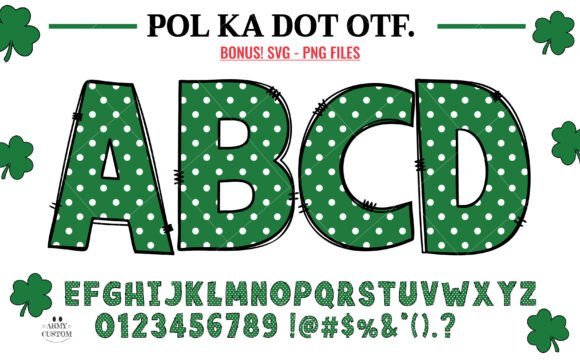
Get Ready to Celebrate St. Patrick’s Day in Style
As you start planning your St. Patrick’s Day decorations and crafts, have you ever stopped to think about the perfect font to capture the festive spirit? Perhaps you’ve spent hours searching for the perfect design element to add a touch of magic to your projects. Well, look no further! The Dot Shamrock Font is here to bring a burst of bright green and shamrock fun to your designs.
This adorable font is perfect for adding a playful touch to your St. Patrick’s Day celebrations. With its bold, handmade look and cute shamrock patterns, it’s sure to delight designers and crafters of all ages. Whether you’re creating invitations, signs, or decorations, the Dot Shamrock Font is a valuable addition to any design arsenal.
- Unique Characteristics: The Dot Shamrock font features a distinctive shamrock-inspired design, with intricate details and a playful, whimsical feel, making it ideal for use in festive or Irish-themed designs.
Designer Review: Dot Shamrock Font
I recently had the chance to work with the Dot Shamrock Font, and I have to say, it’s a unique and quirky addition to any design project. ✨ The font’s subtle texture and dot pattern add a tactile feel to text, making it perfect for creating a sense of nostalgia or retro charm.
One of the things I love about the Dot Shamrock Font is its versatility. ✨ It works well for both digital and print designs, and can be used for a wide range of applications, from logos and branding to signage and packaging.
While the Dot Shamrock Font is a great addition to any design project, there are a few limitations to be aware of. ⚠️ The font’s texture can sometimes make it difficult to read, especially in smaller sizes or at a distance. Additionally, the font may not be suitable for projects that require a high level of precision or clarity.
Overall, I think the Dot Shamrock Font is a great choice for designers who want to add a unique touch to their projects. With its versatility and nostalgic charm, it’s a great addition to any design library.
- Unique texture and dot pattern add a tactile feel to text
- Perfect for creating a sense of nostalgia or retro charm
- Works well for both digital and print designs
- Can be used for a wide range of applications
Use the Dot Shamrock Font for creative and playful designs, such as:
- St. Patrick’s Day graphics and invitations
- Children’s party decorations and materials
- Food and drink labels and packaging